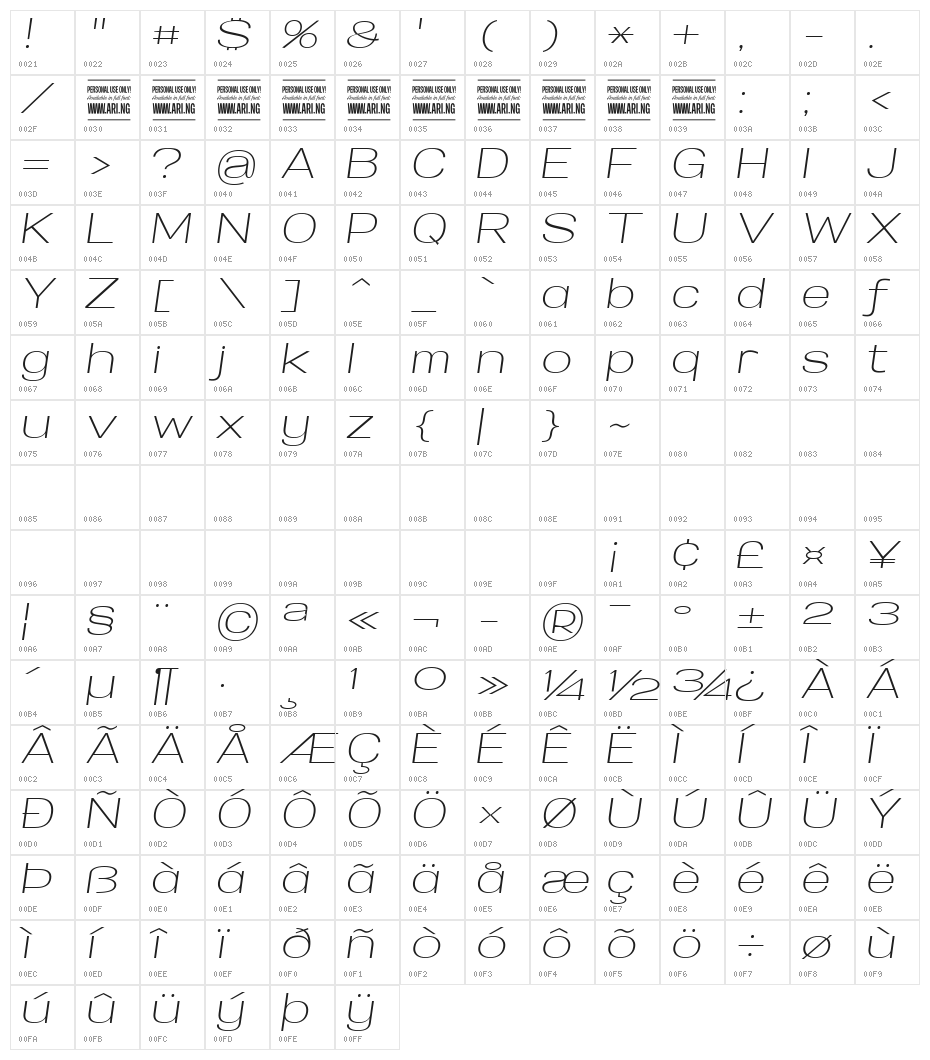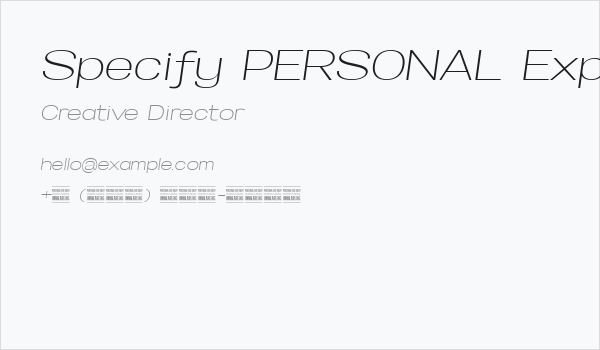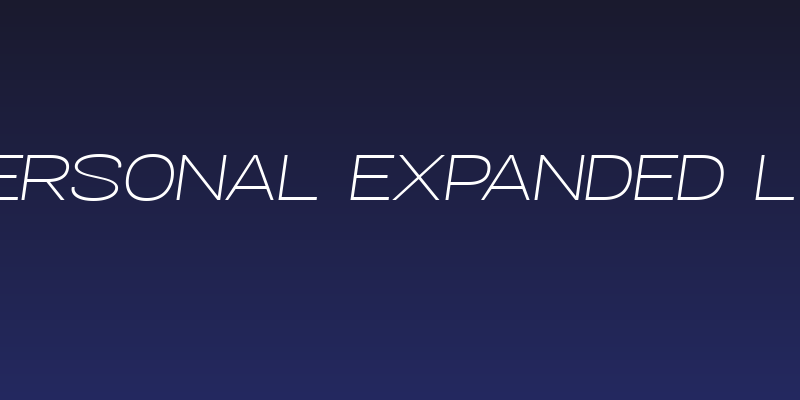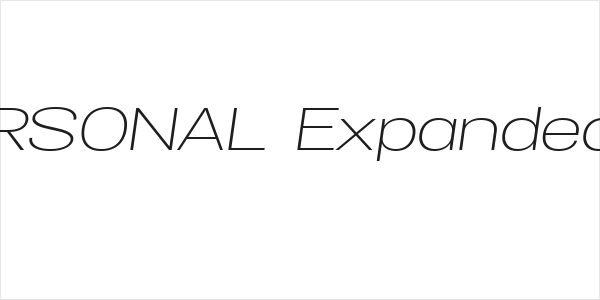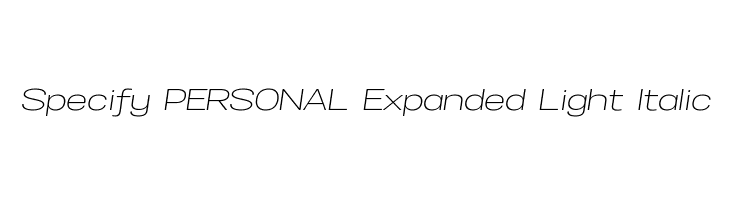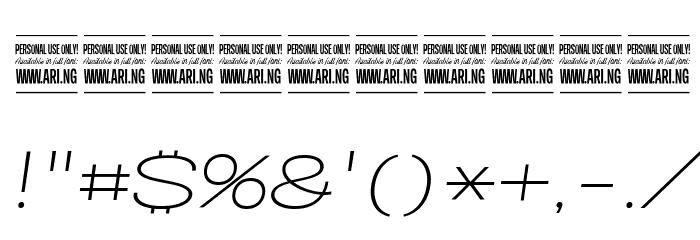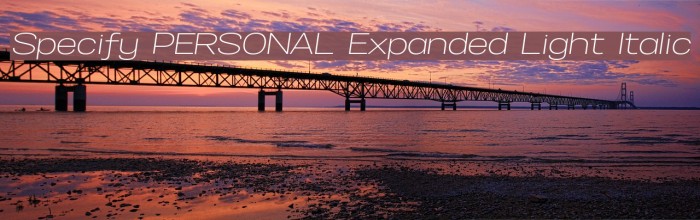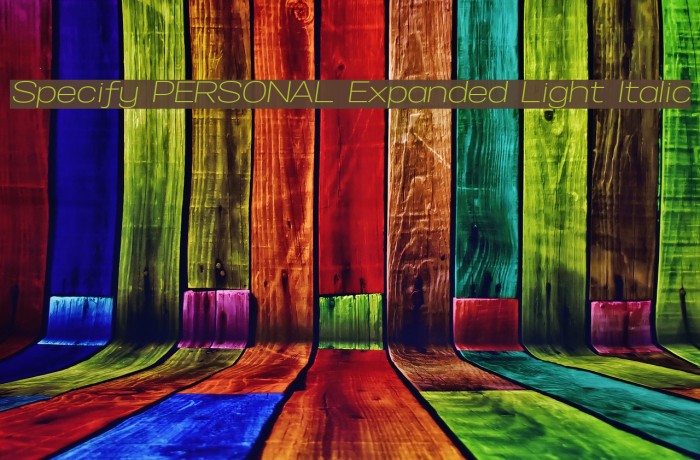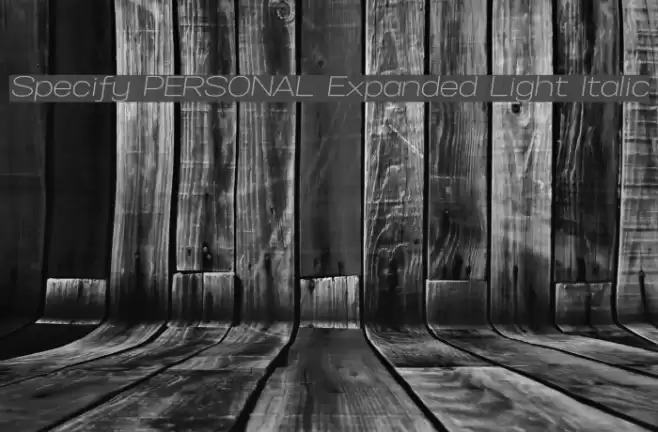
Specify PERSONAL Expanded Light Italic Font
Specify PERSONAL Expanded Light Italic Description
This font features a sleek and modern design with an expanded width and light weight. The italic style adds a dynamic and elegant touch, making it suitable for contemporary projects. The characters are well-spaced, providing a clean and airy appearance. Its minimalist aesthetic is enhanced by the smooth curves and subtle angles, offering a sophisticated look. The font includes a full set of uppercase and lowercase letters, numbers, and a variety of special characters, ensuring versatility in design applications.
| Proposed Projects | Ideal for branding, headlines, modern web design, and editorial layouts. |